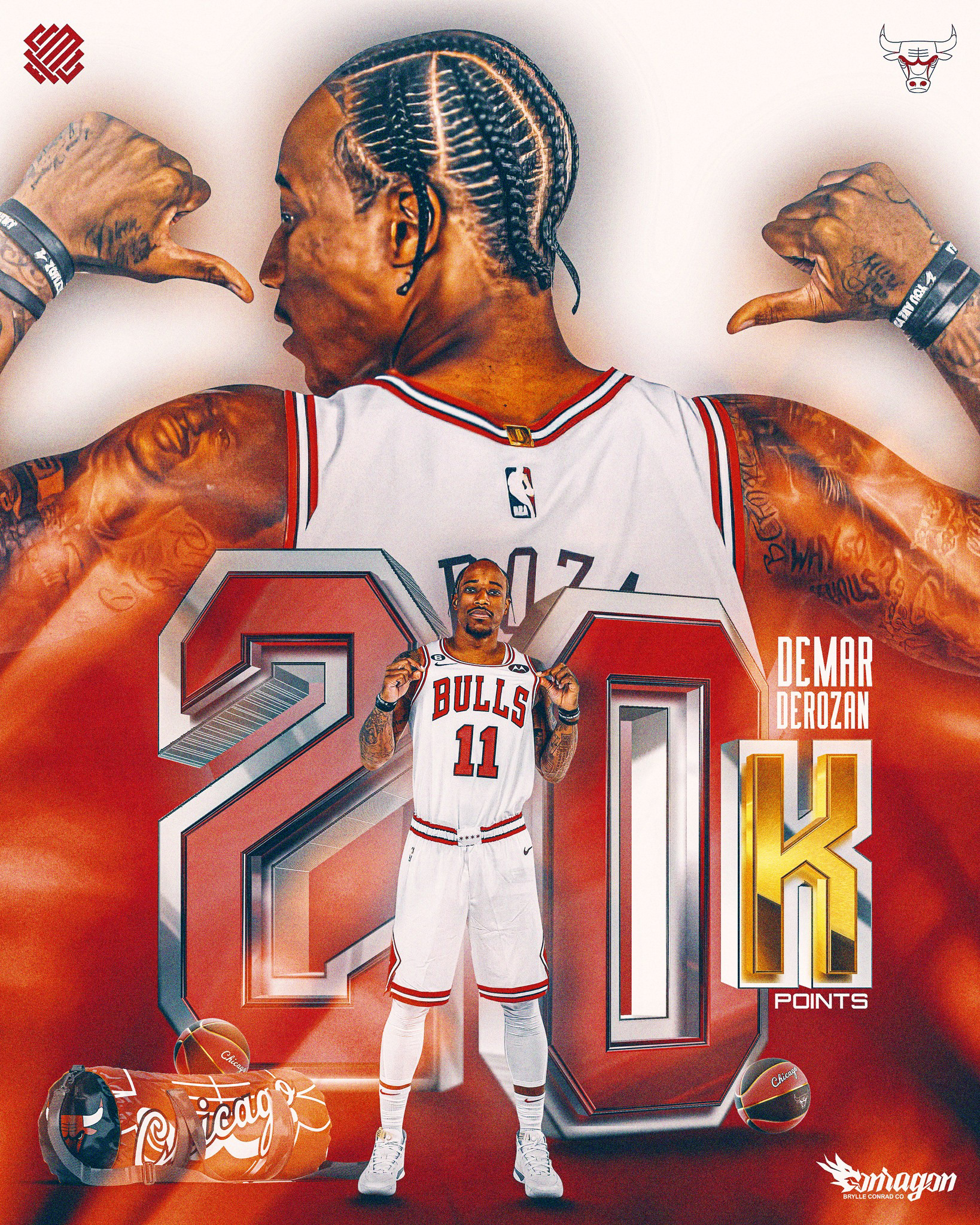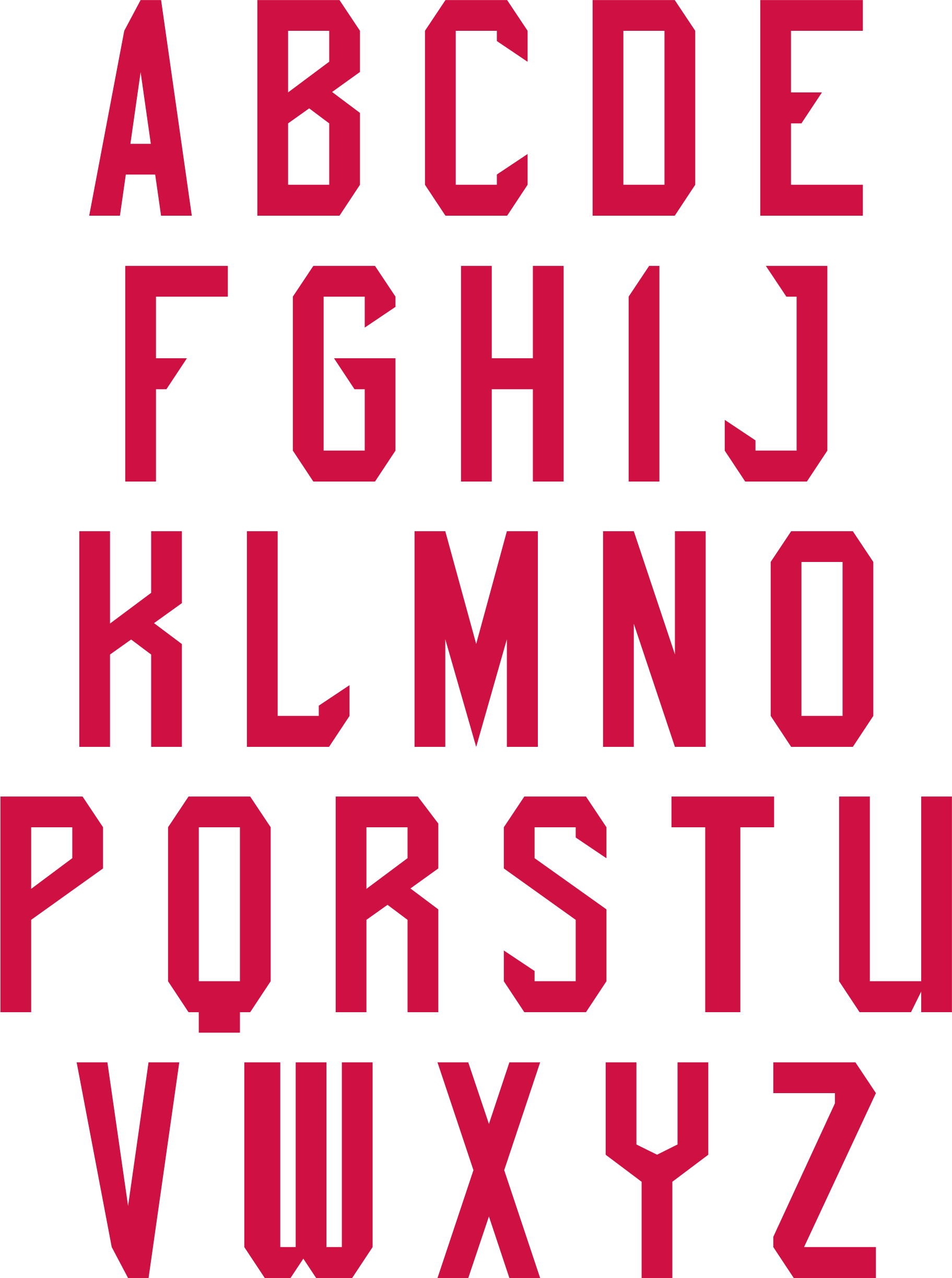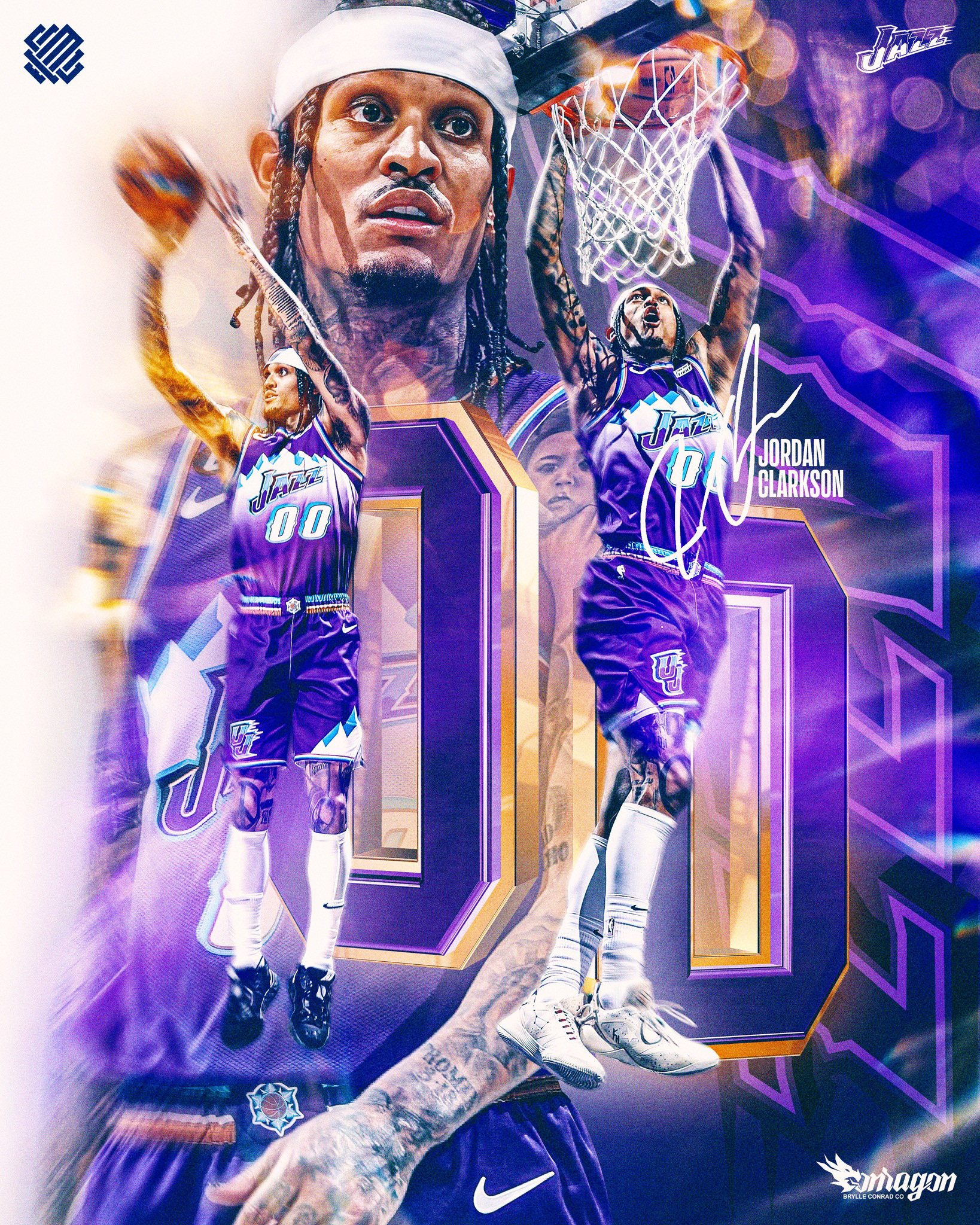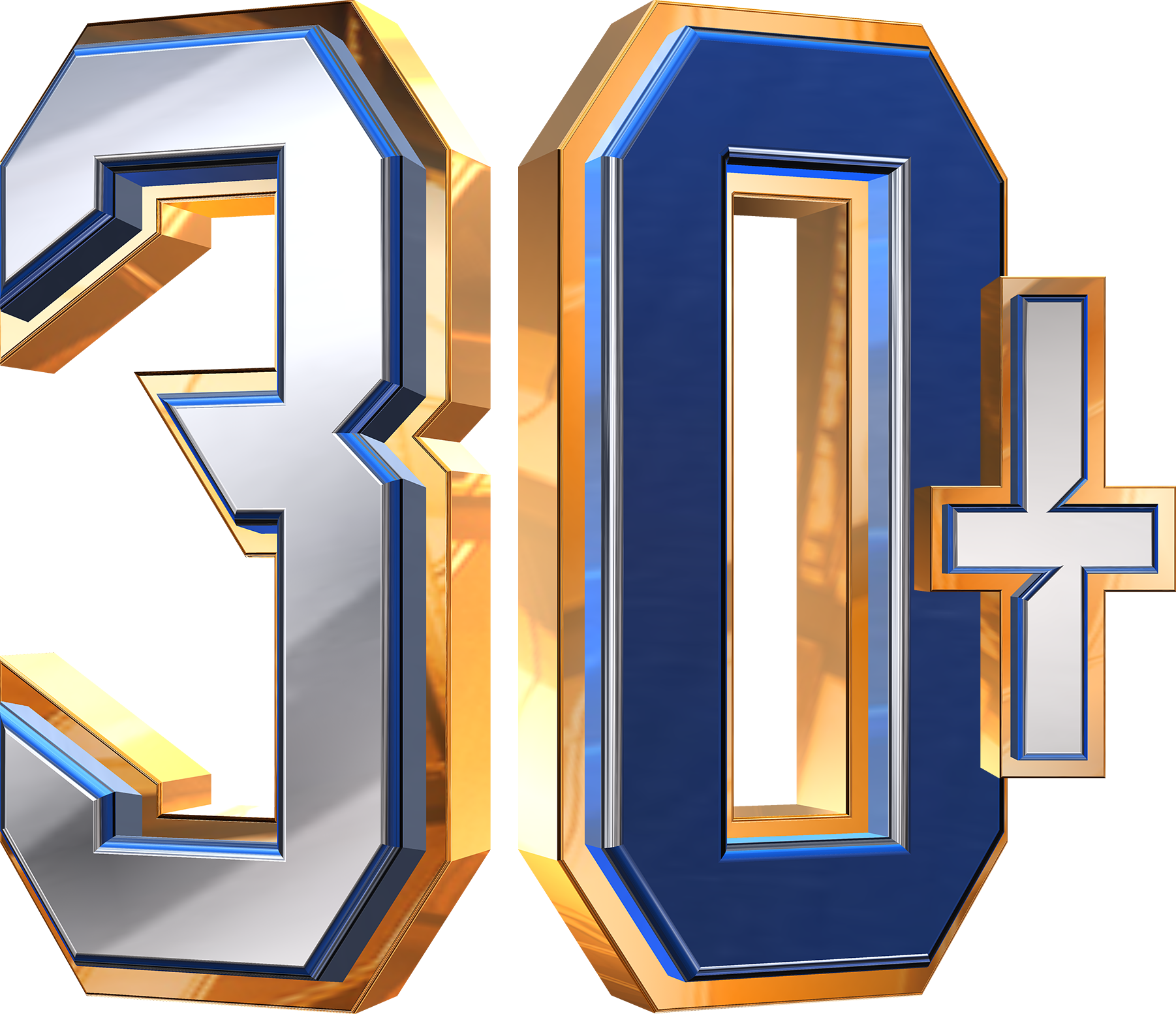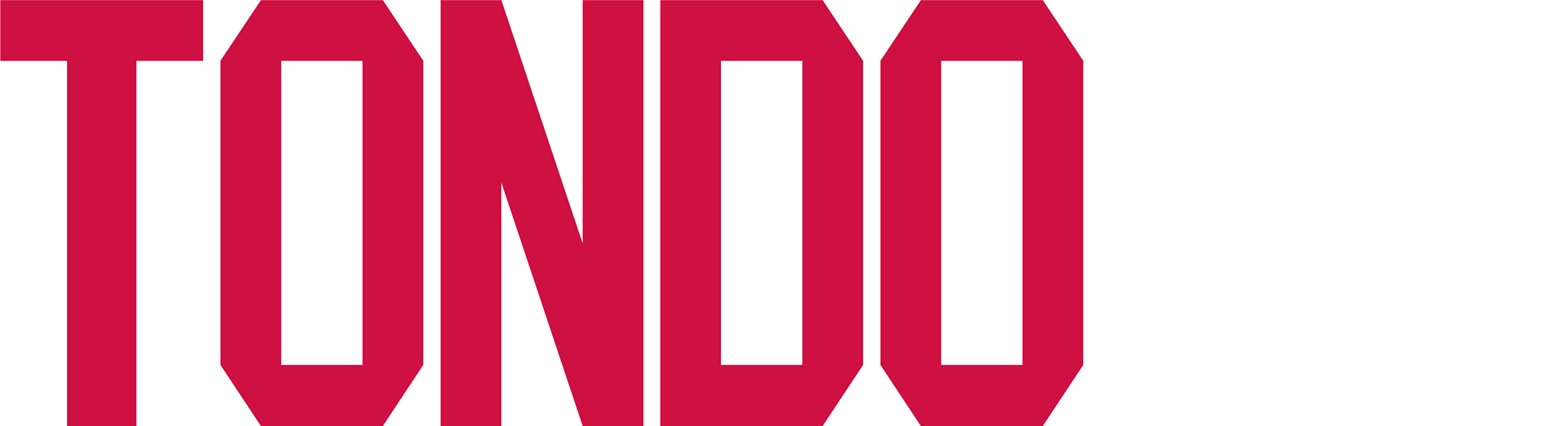
Presenting one of my favorite font in MNL series. Names are based from places in Manila City, Philippines.
Here's are the sample works that I made with the Tondo MNL Number font. You can request for PNGs of numbers.